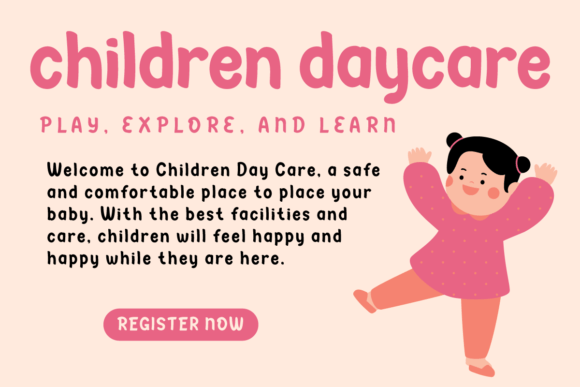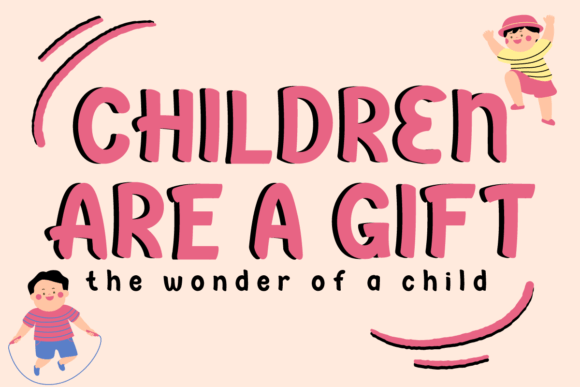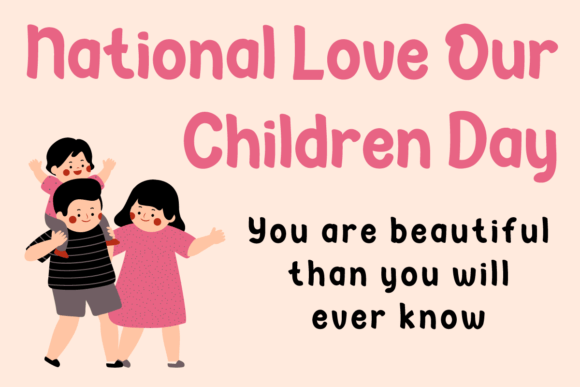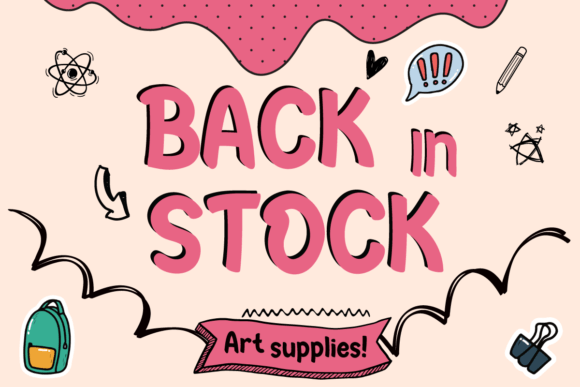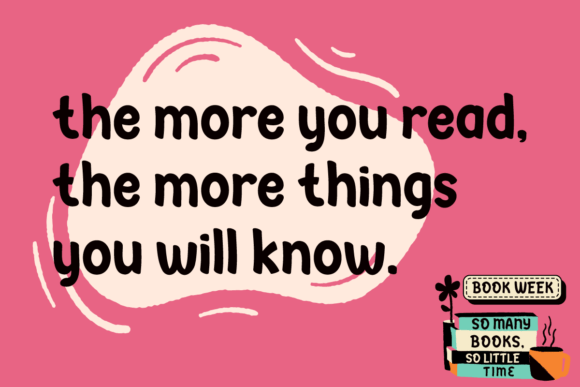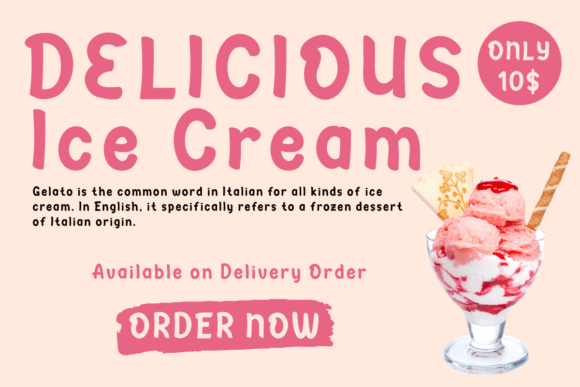
Introduction to Lirzec Font Font
Fonts play a crucial role in design, and the Lirzec Font font is a typeface that brings both character and versatility to any project. Whether you’re working on a branding project, a website, or a print design, the Lirzec Font font offers a unique style that can elevate your work.
Introducing βLirzec Fontβ β Where Playfulness Meets Creativity.
Lirzec Font is your gateway to adding a delightful touch of whimsy to your designs This playful typeface is designed to infuse your projects with a sense of joy and imagination.
The Lirzec Font font is more than just a typeface β it’s a design tool that helps you communicate your message with style and clarity. Its unique character set and versatile design make it suitable for a wide range of applications, from elegant invitations to bold headlines.
With its carefully crafted letterforms and balanced proportions, the Lirzec Font font ensures readability and visual appeal across all mediums.
What makes Lirzec Font font special?
The Lirzec Font font stands out with its unique design, exceptional readability, and versatility across various design applications.